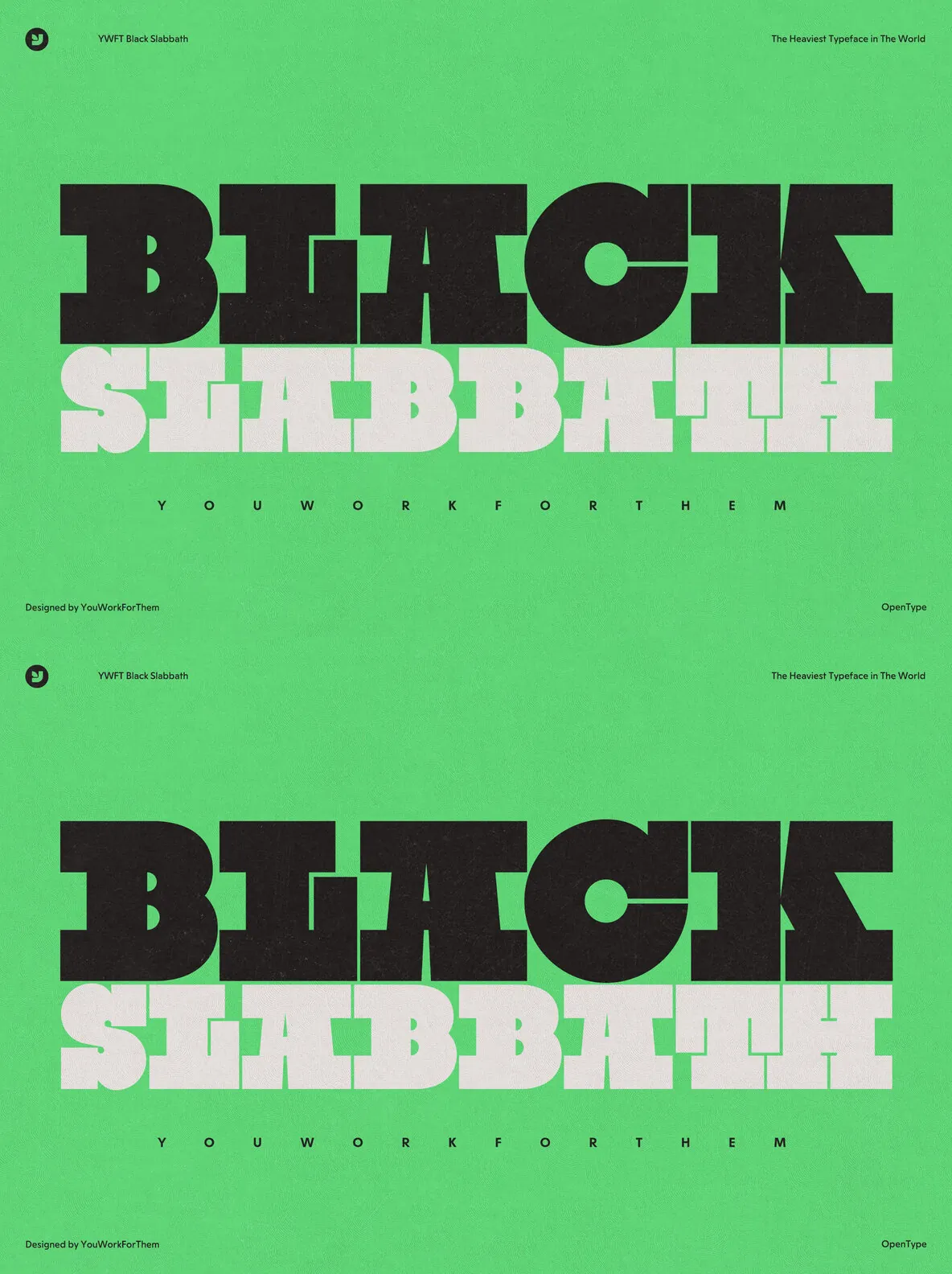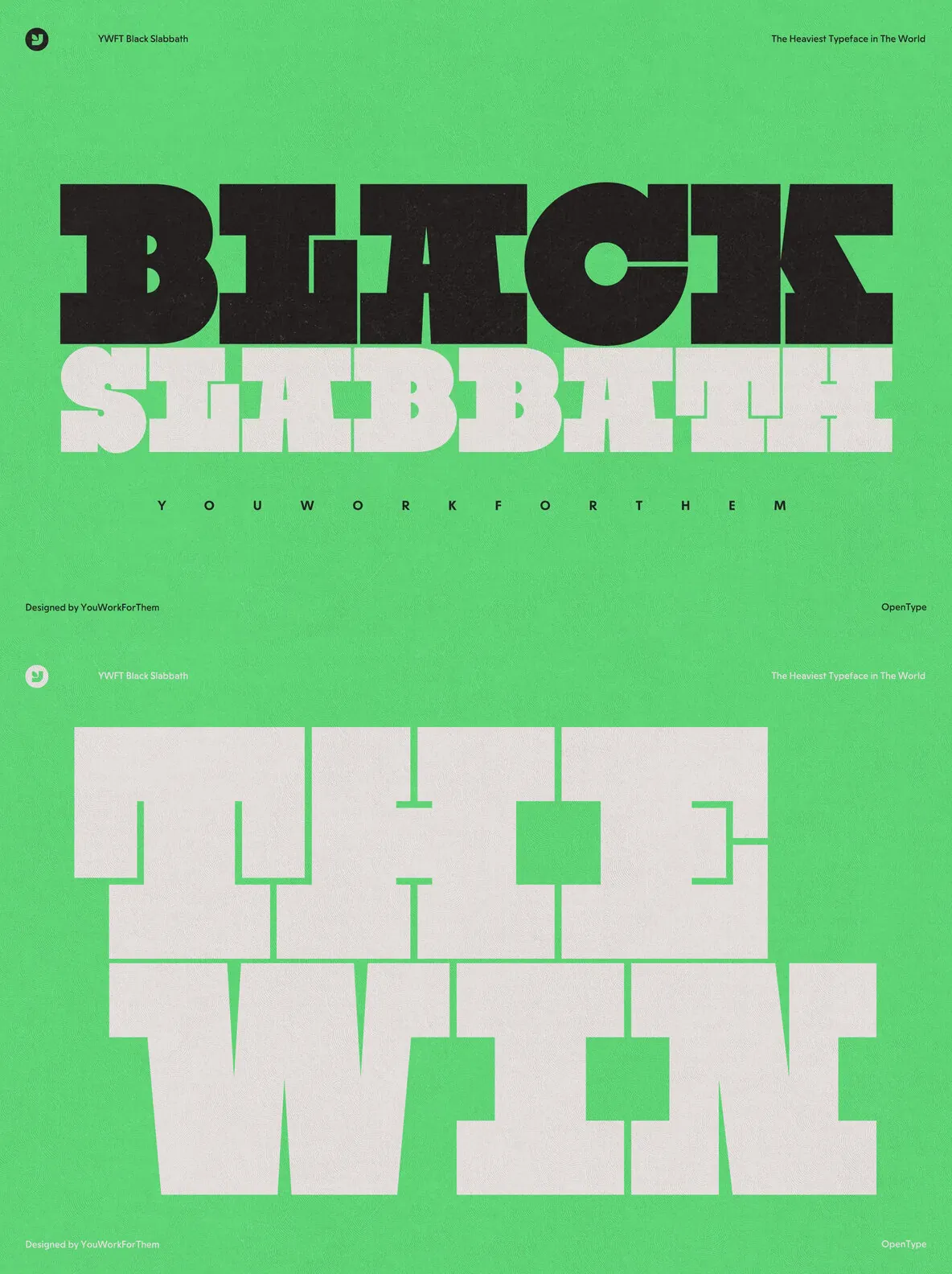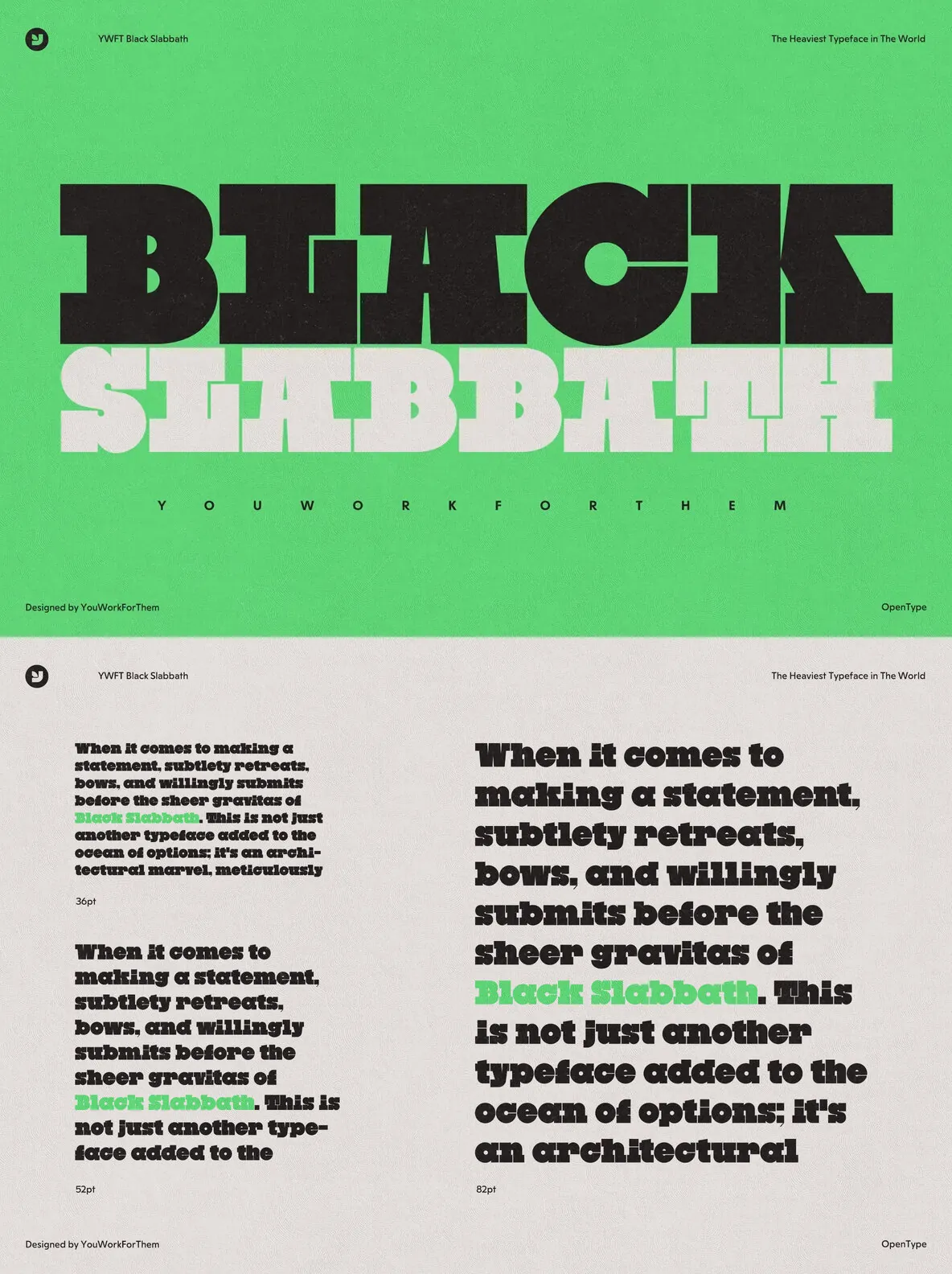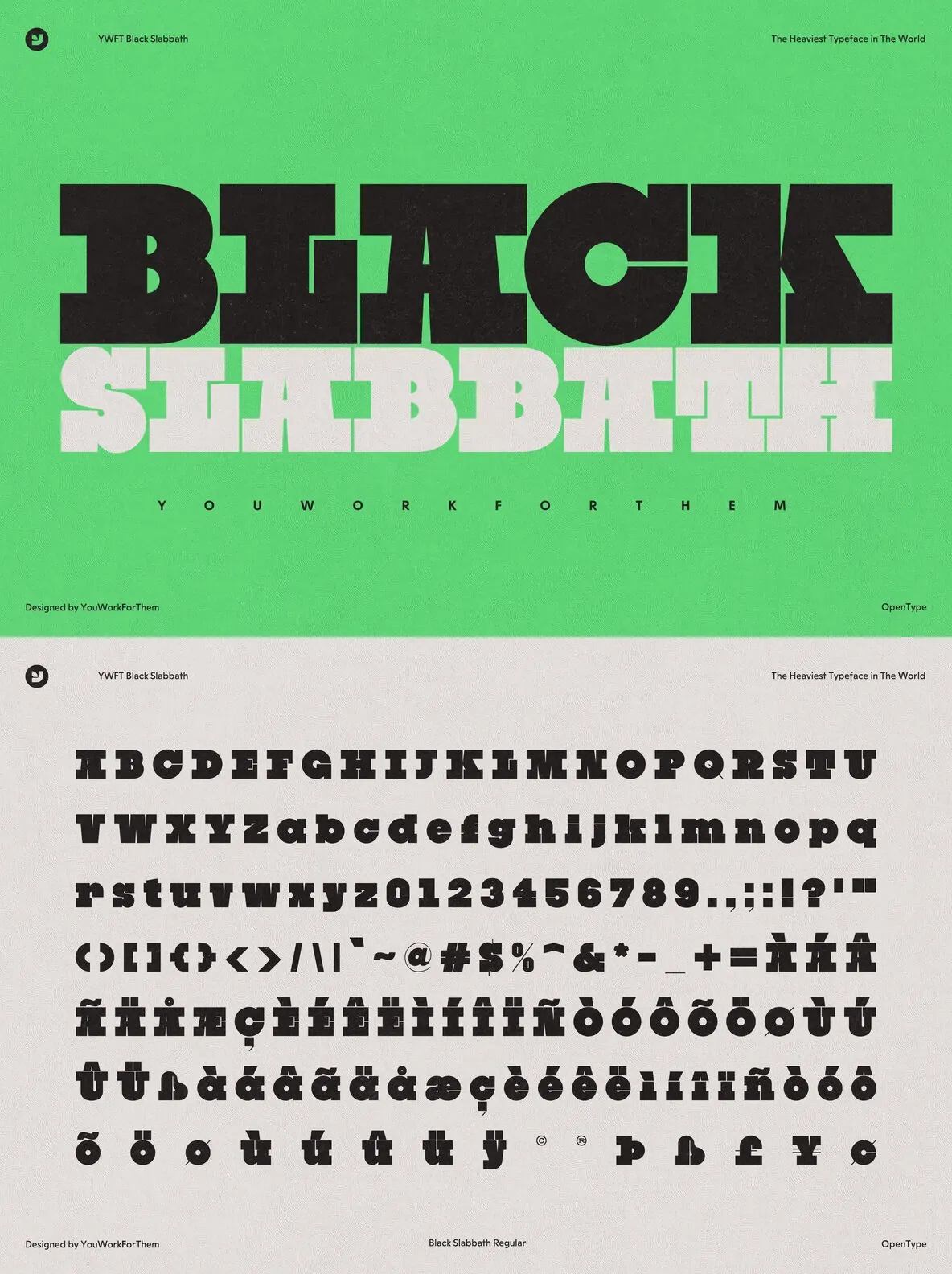
YWFT Black Slabbath: Geometric Slab Serif with Striking Contrast
YWFT Black Slabbath stands apart as an ultra-bold geometric slab serif, characterized by its immense visual weight and precision-cut white space. Designed for graphic designers who value clarity and impact, this typeface achieves a striking equilibrium—the dense, dark letterforms are sculpted through intricate, razor-thin divisions of space, generating both drama and readability. Since its introduction in 2008, Black Slabbath has been recognized for its daring concept, often cited as the “heaviest typeface in the world.”
This typeface is particularly effective in branding, editorial layouts, poster design, and any context where immediate attention is required without sacrificing sophistication. The geometric structure of each character, paired with the deliberate pacing of negative space, yields a rhythm unique among slab serifs. Black Slabbath is designed for those ready to make measured, confident statements in their work—balancing artistic innovation with functional versatility.
Ultra-bold design for high-impact visuals
Defined contrast between black and white space
Rhythmic, geometric character construction
Versatile in editorial, branding, and poster applications